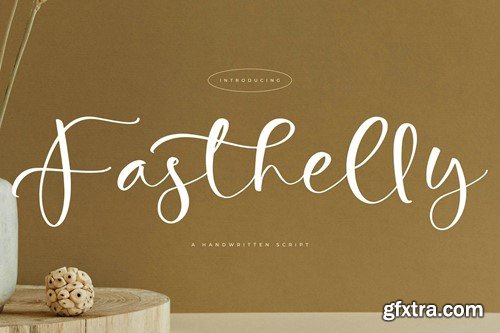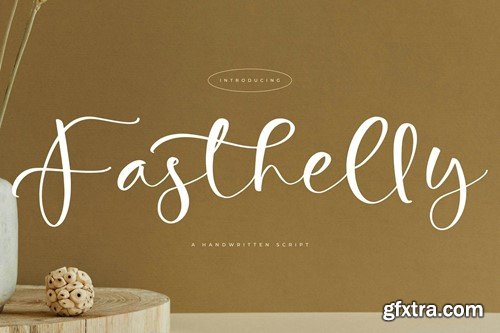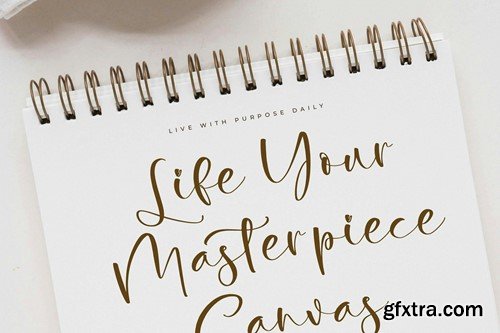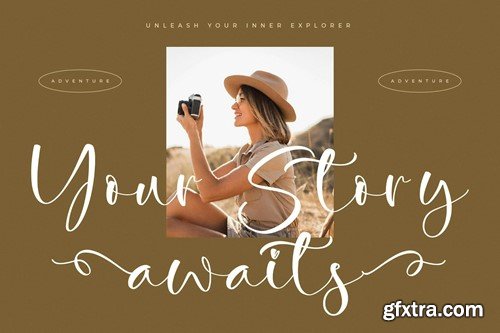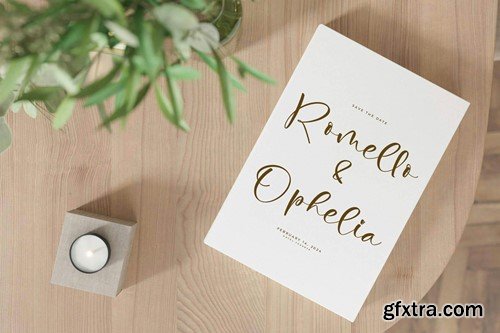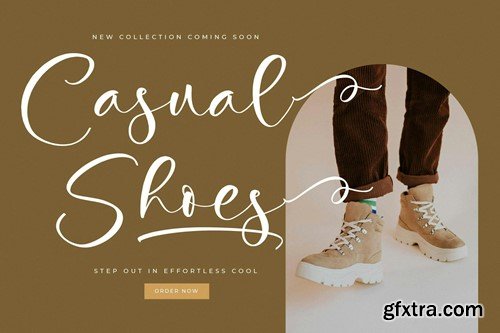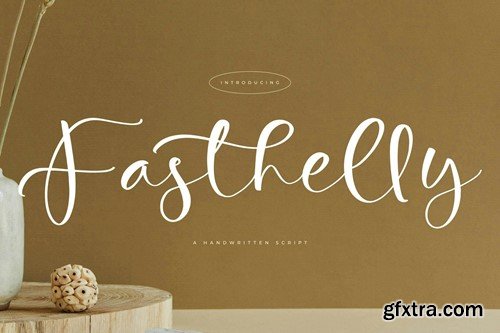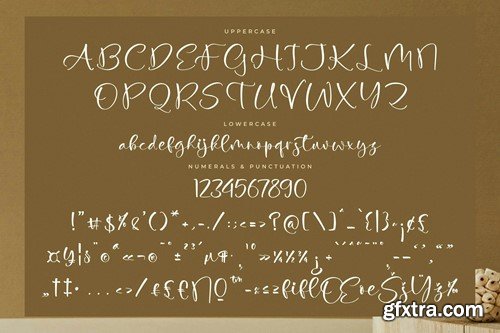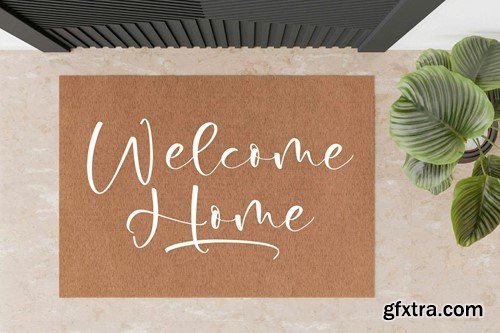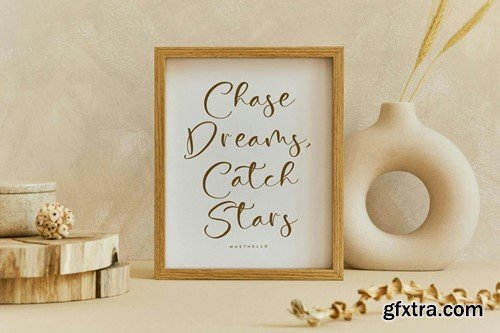
Fasthelly Handwritten Script Font VHZU9BV
Fasthelly Handwritten Script Font
Hi ladies & gentlemen, this is one of our fonts suitable to complement your digital and printed creative products. This font is perfect for posters, social media posts, branding, personal projects, etc.